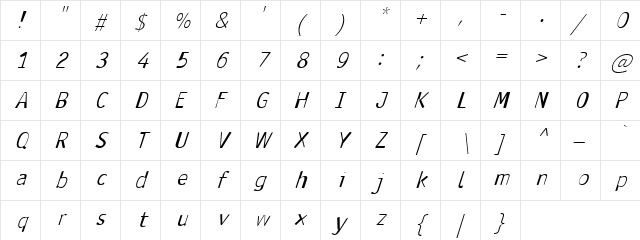
Asasa Pleeka Regular
Design Context for Asasa Pleeka Typeface
Asasa Pleeka offers clean, dependable letterforms without strong stylistic allegiance, making it a practical choice for designers who need flexibility.